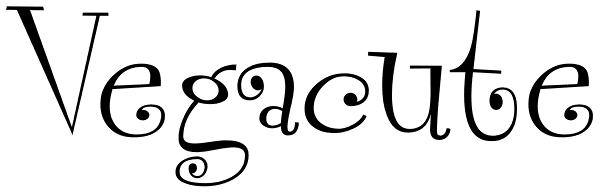
Vegacute
Vegacute is probably the most romantic font from pizzadude.dk to date! With it's elegant swings and jumpy x-height it stays true to the handwritten sketches that served as a model for this font. Use it for headlines or logos; use it for massive text...